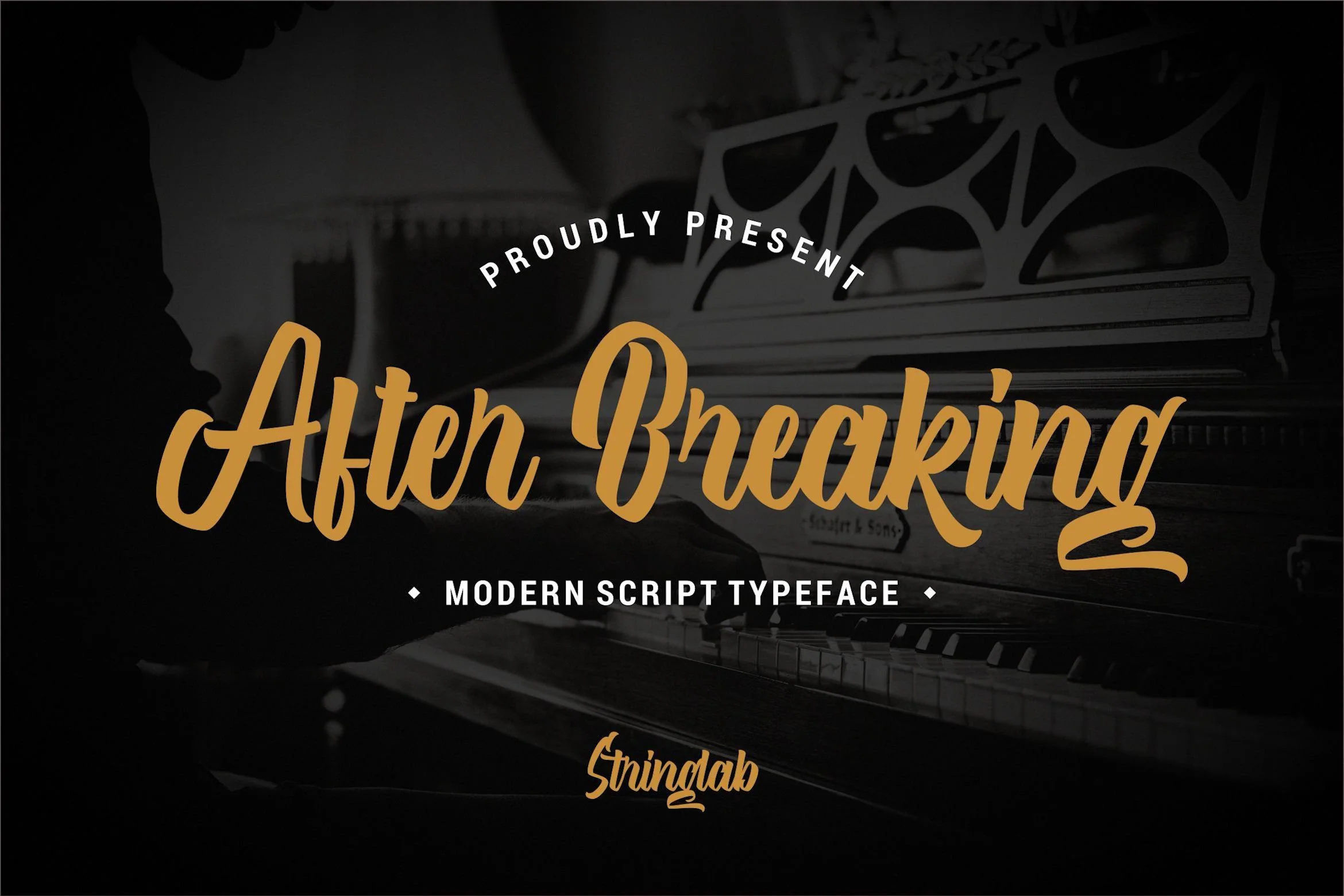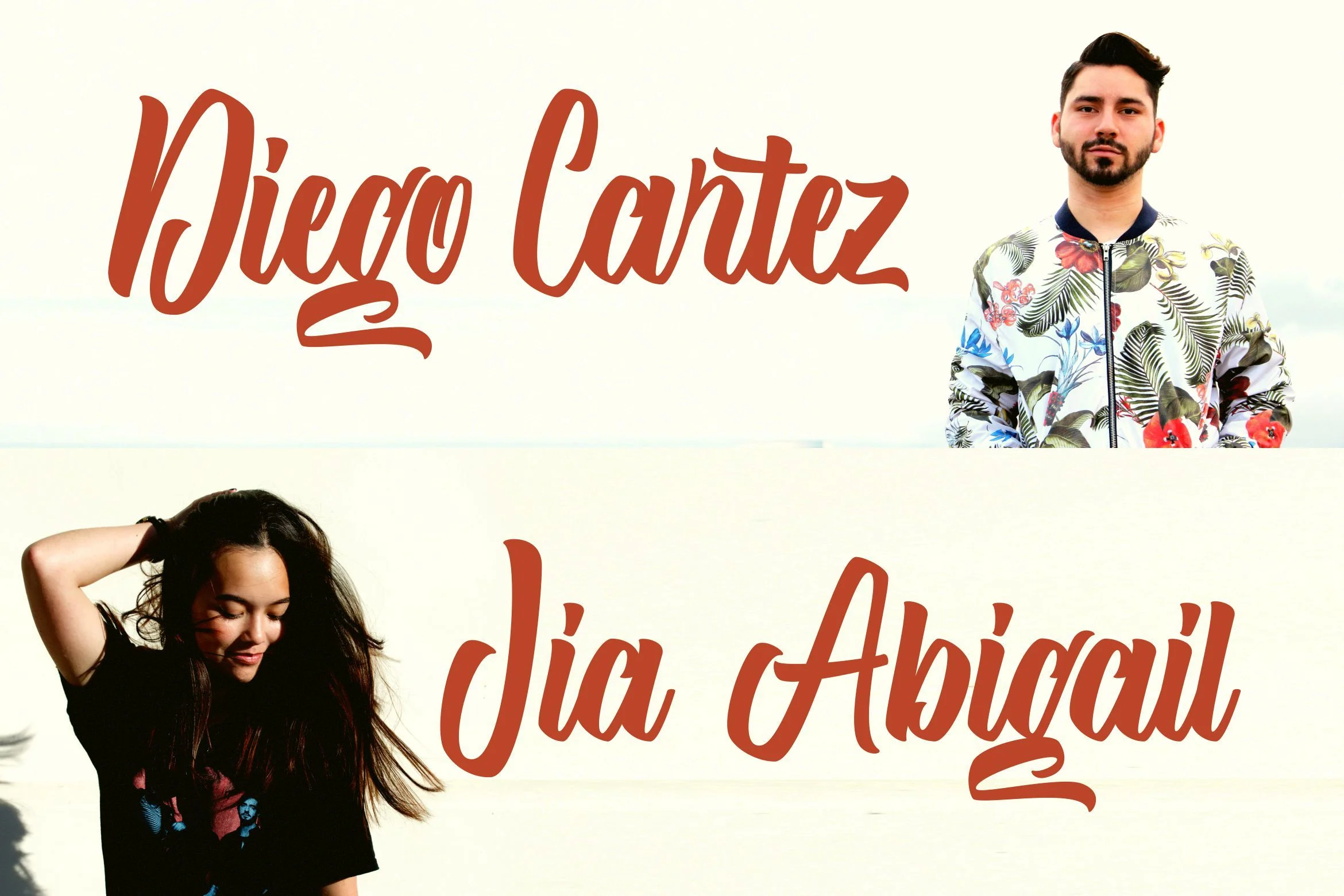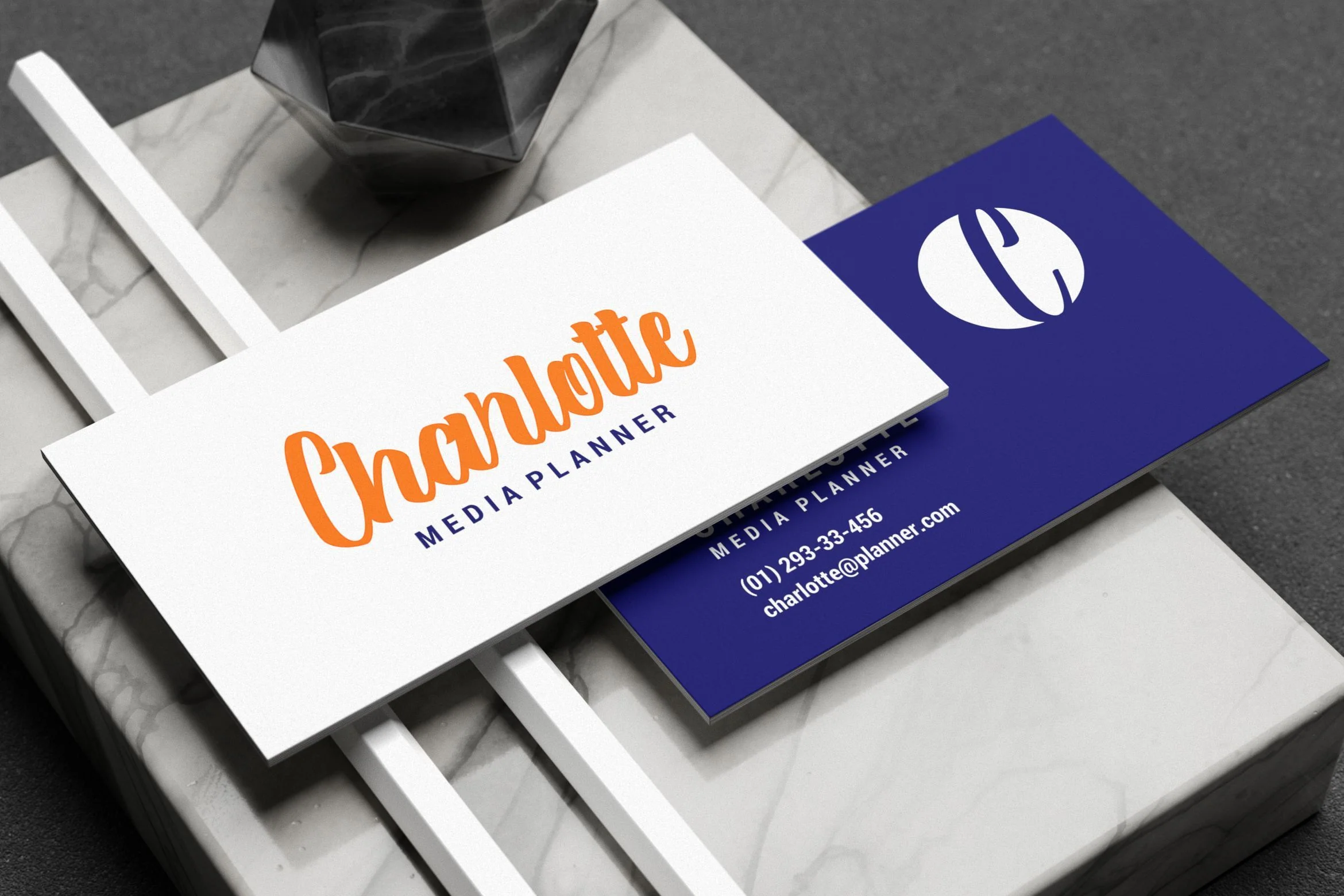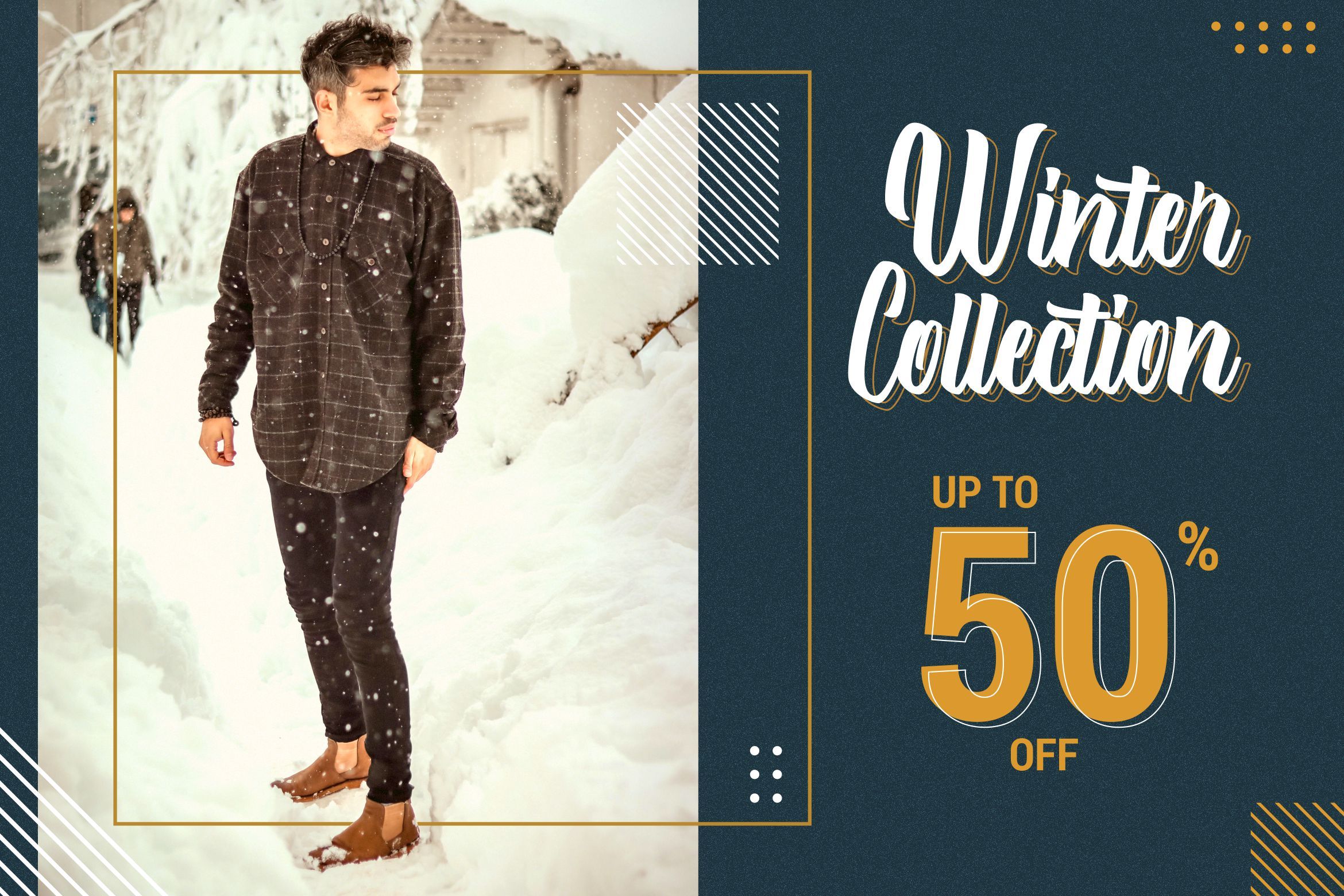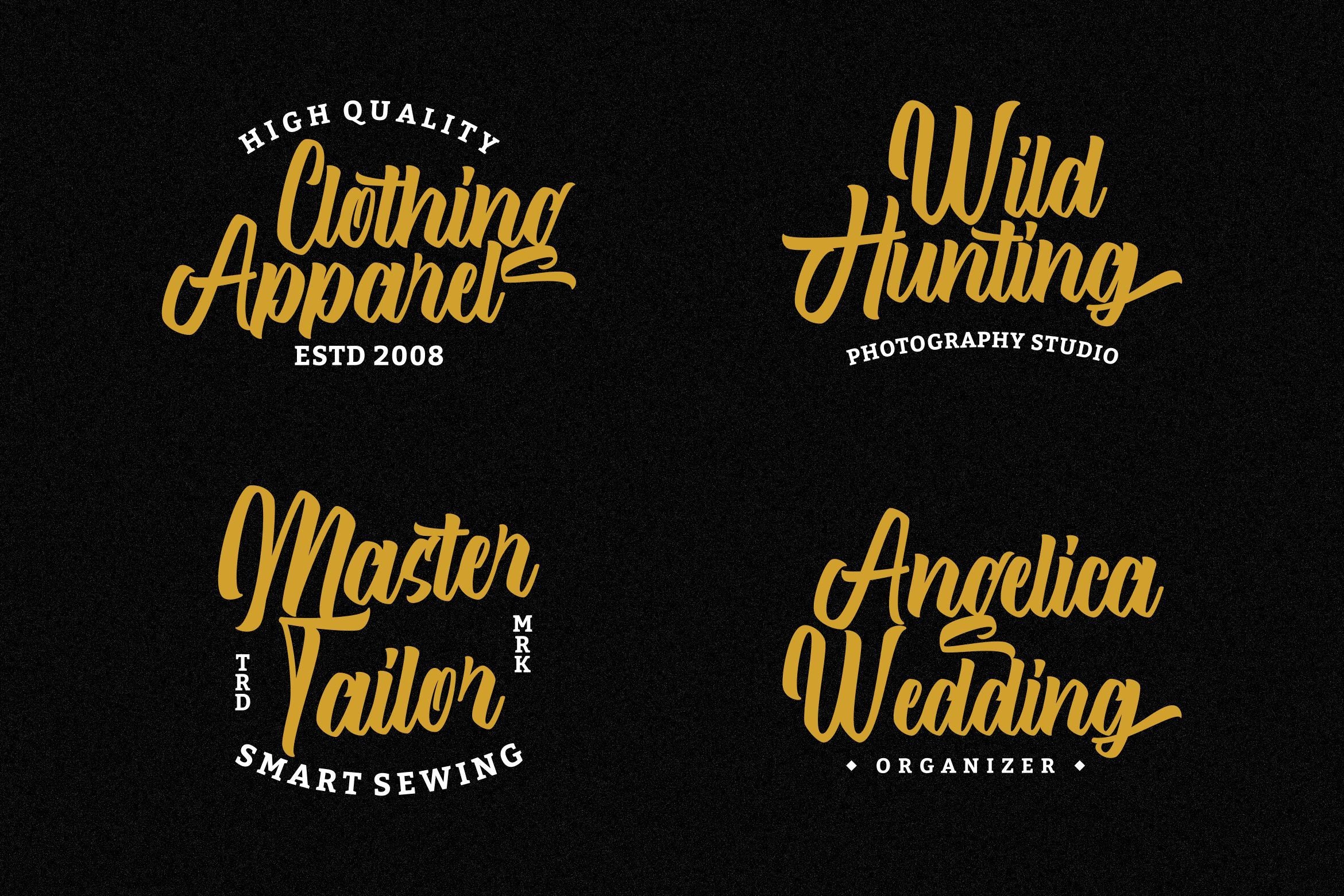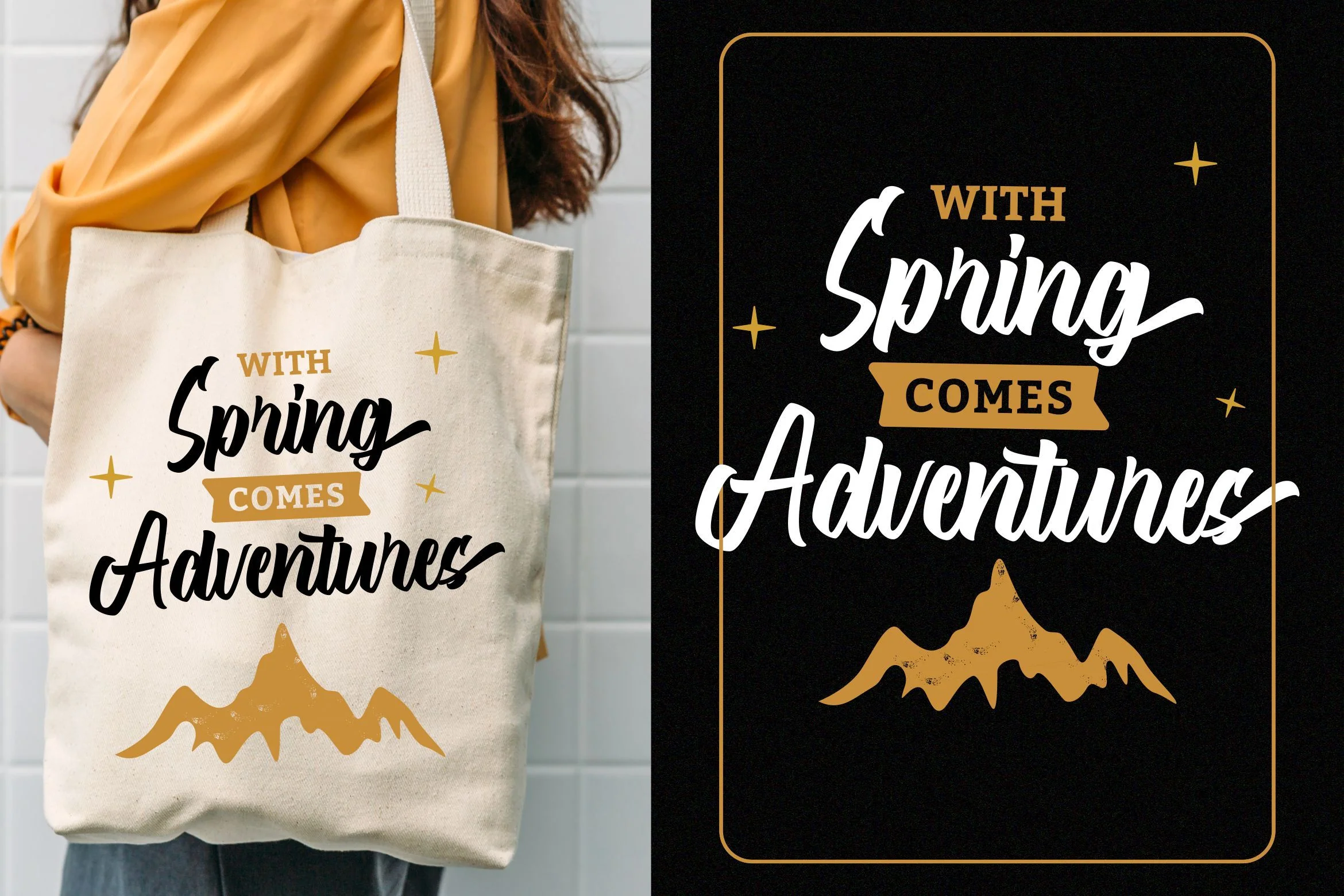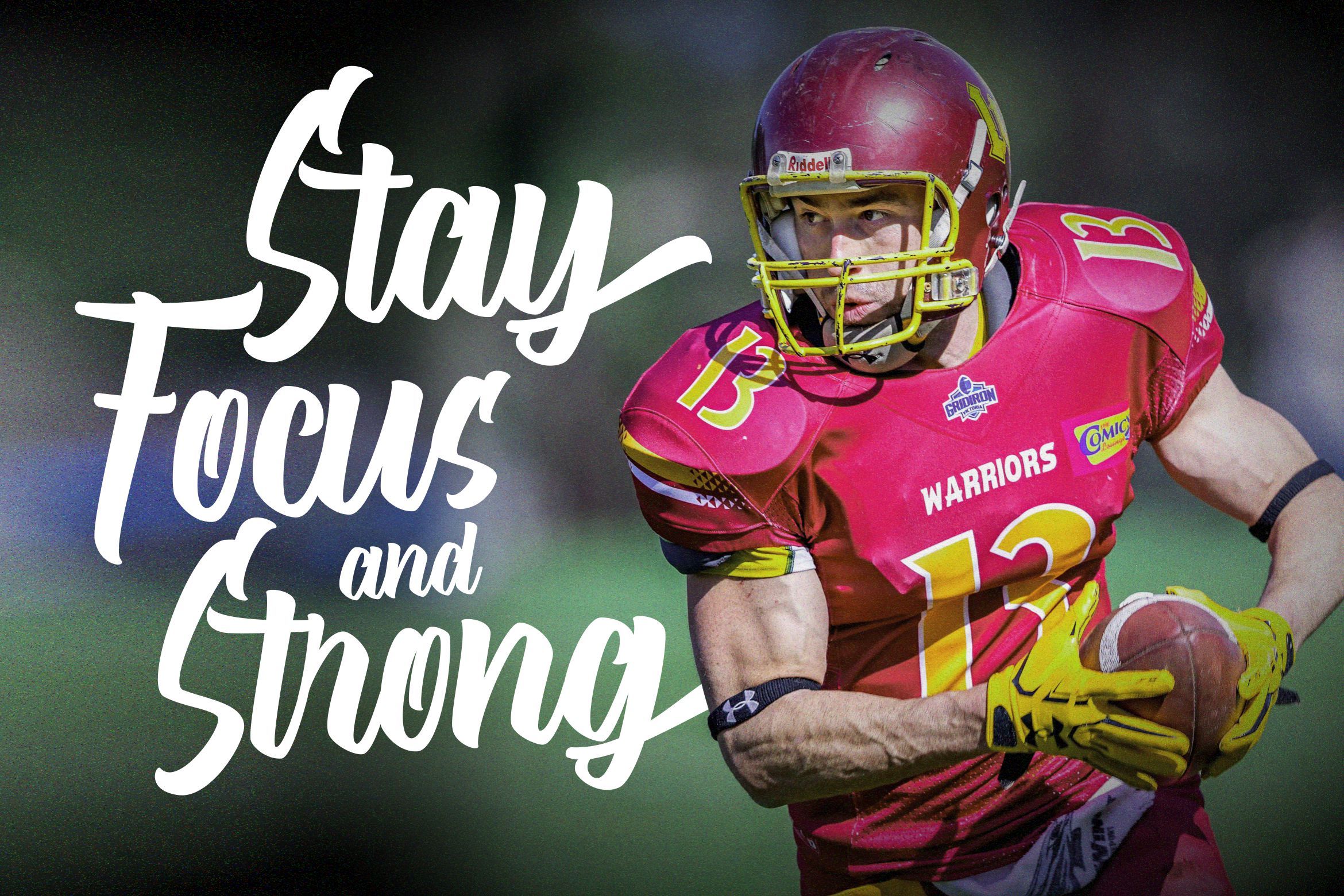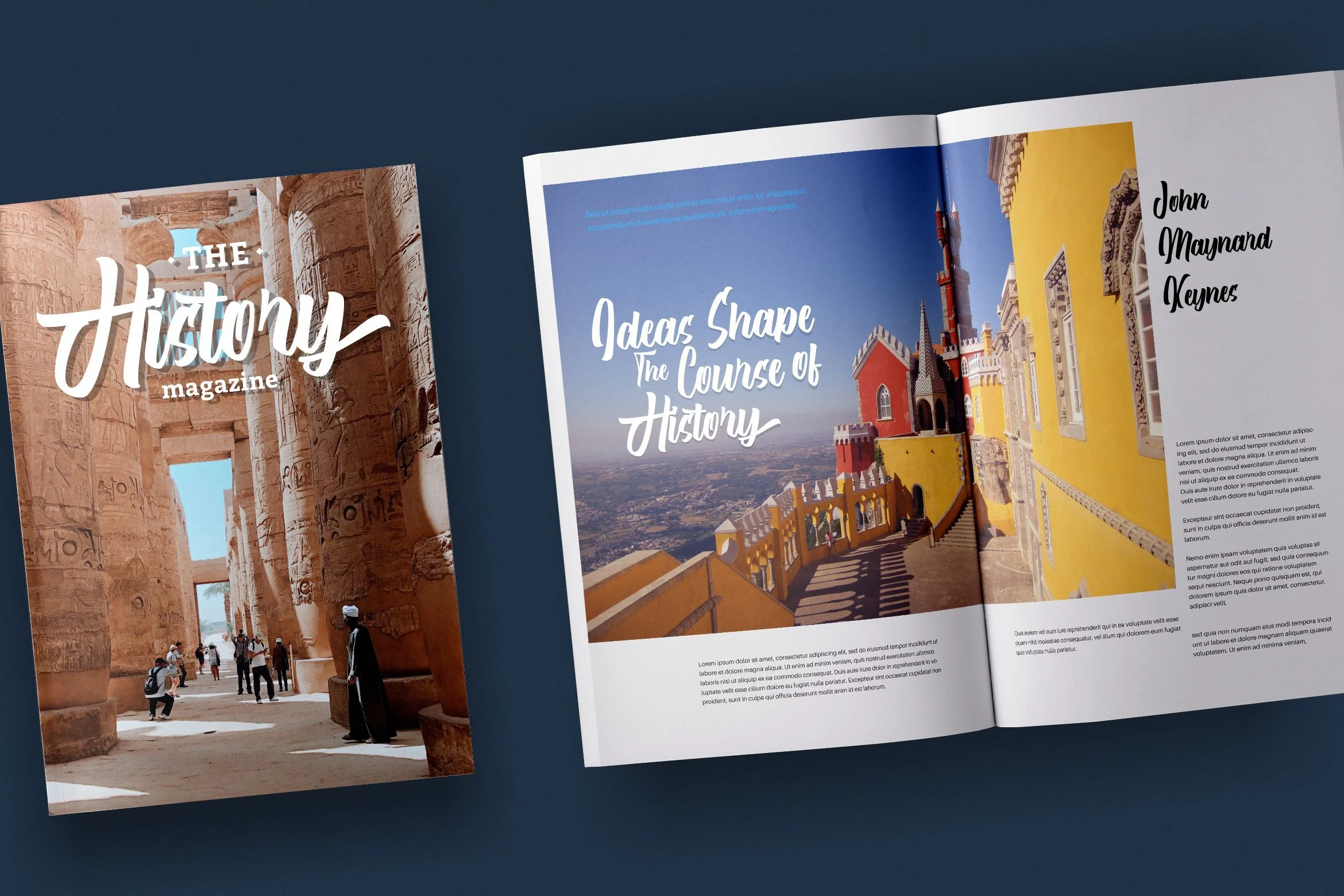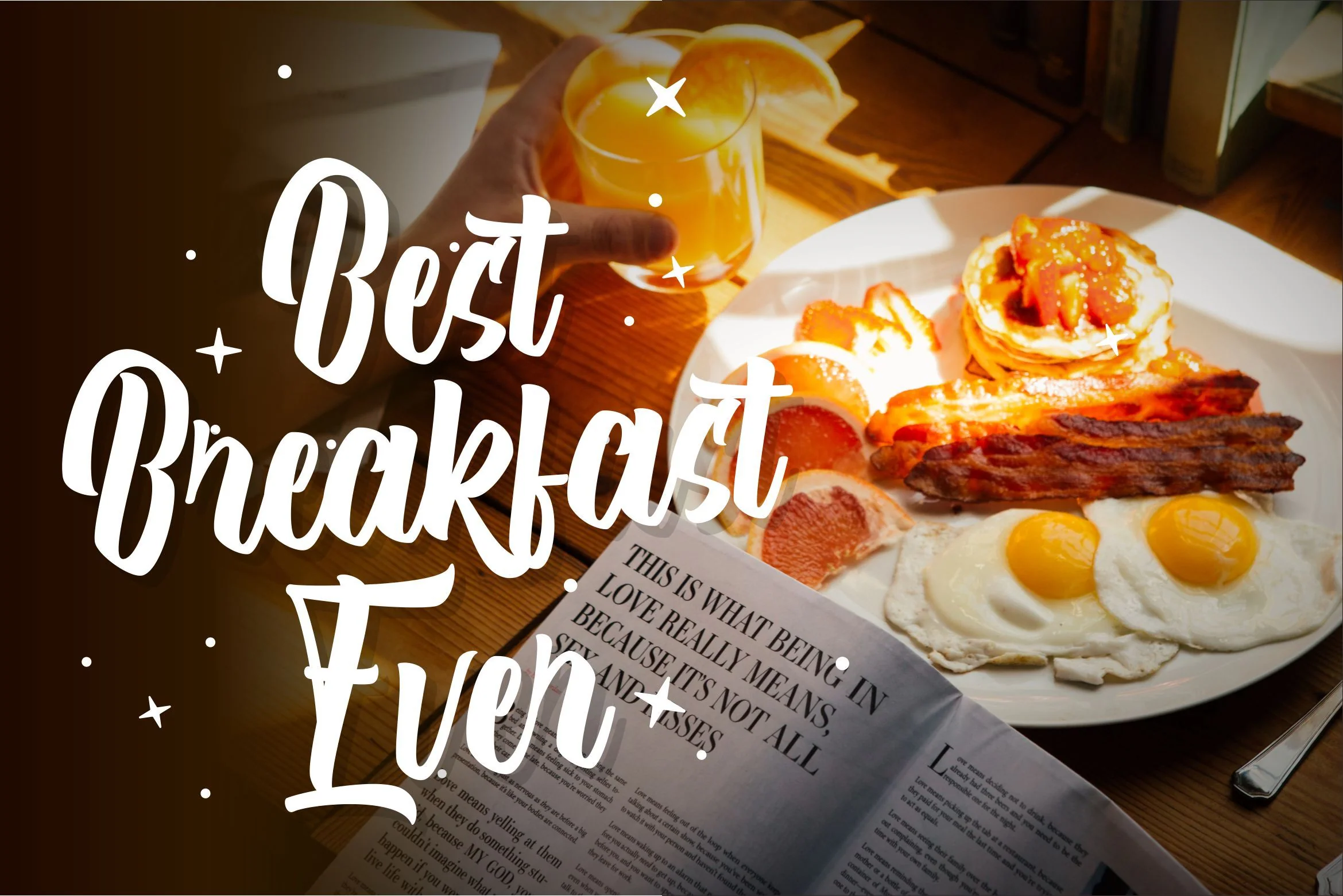
After Breaking - Modern Script Typeface
Introducing After Breaking - Modern Script Typeface
After Breaking is a Modern Handwritten Script Font made with a unique and authentic style. After Breaking has an alternative character that you can use as a choice of style. In addition, After Breaking also has ligatures that enhance your font combinations. After Breaking is perfect for those of you lovers of fonts with a casual and modern style
This Font can be used for any variety of purposes, such as: Photography, Wedding Event, Invitations, Packaging, Logo Type, Branding Design, Apparel, Fashion, Moter Club and also can be used for Business purpose.
This Font Template contains Classy, Elegant, Creative, Cool and has a Unique Concept.
- Stylistic Alternate Characters
- Stylistic Set 01